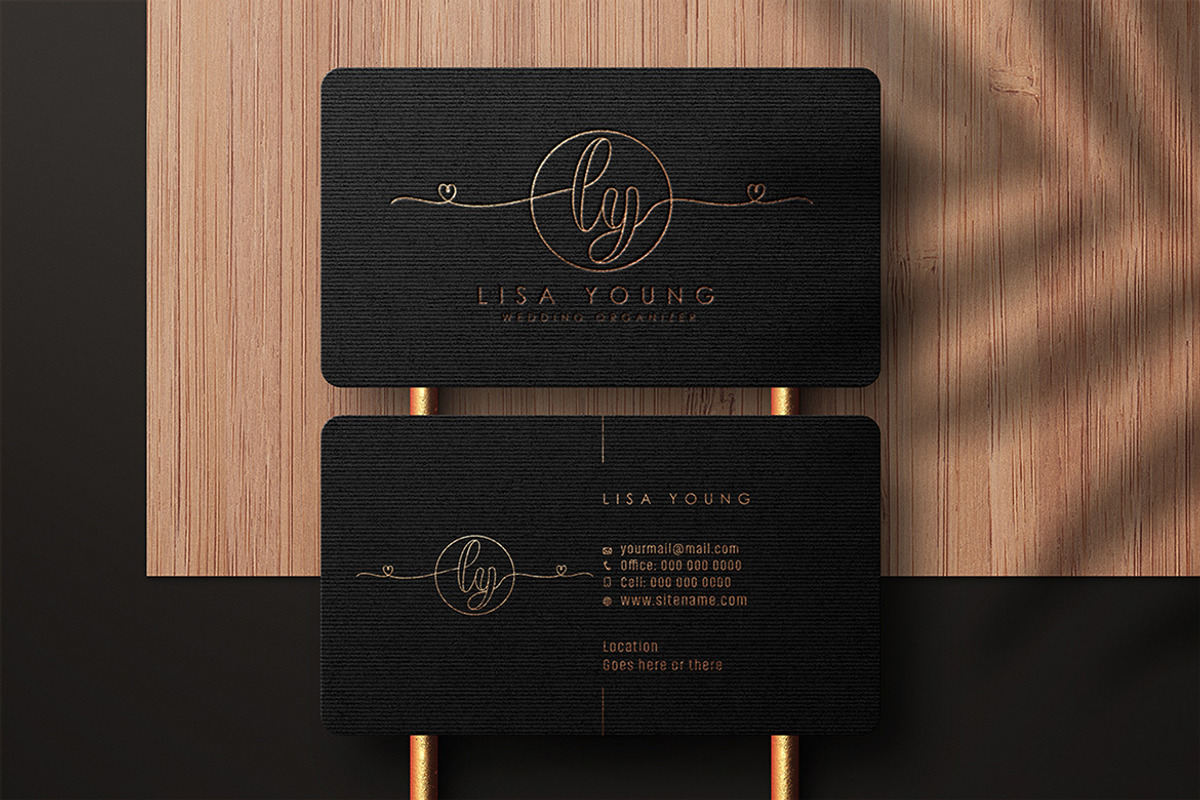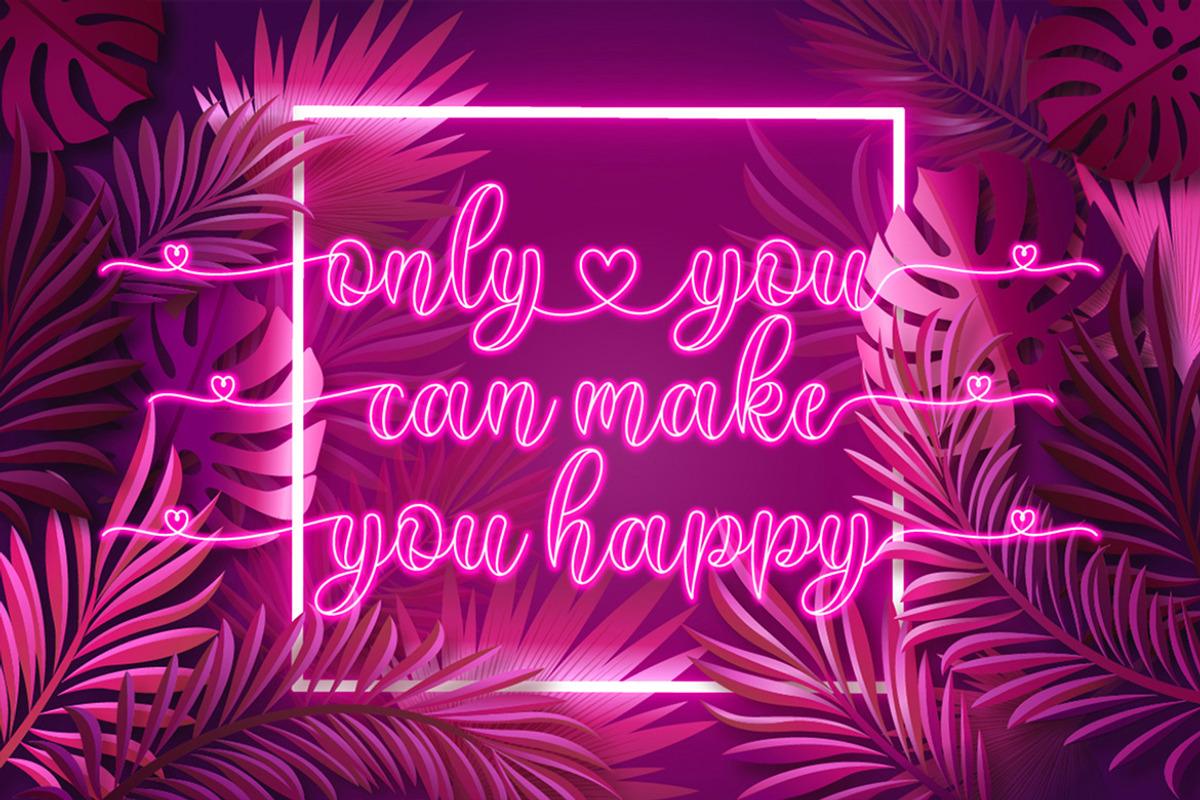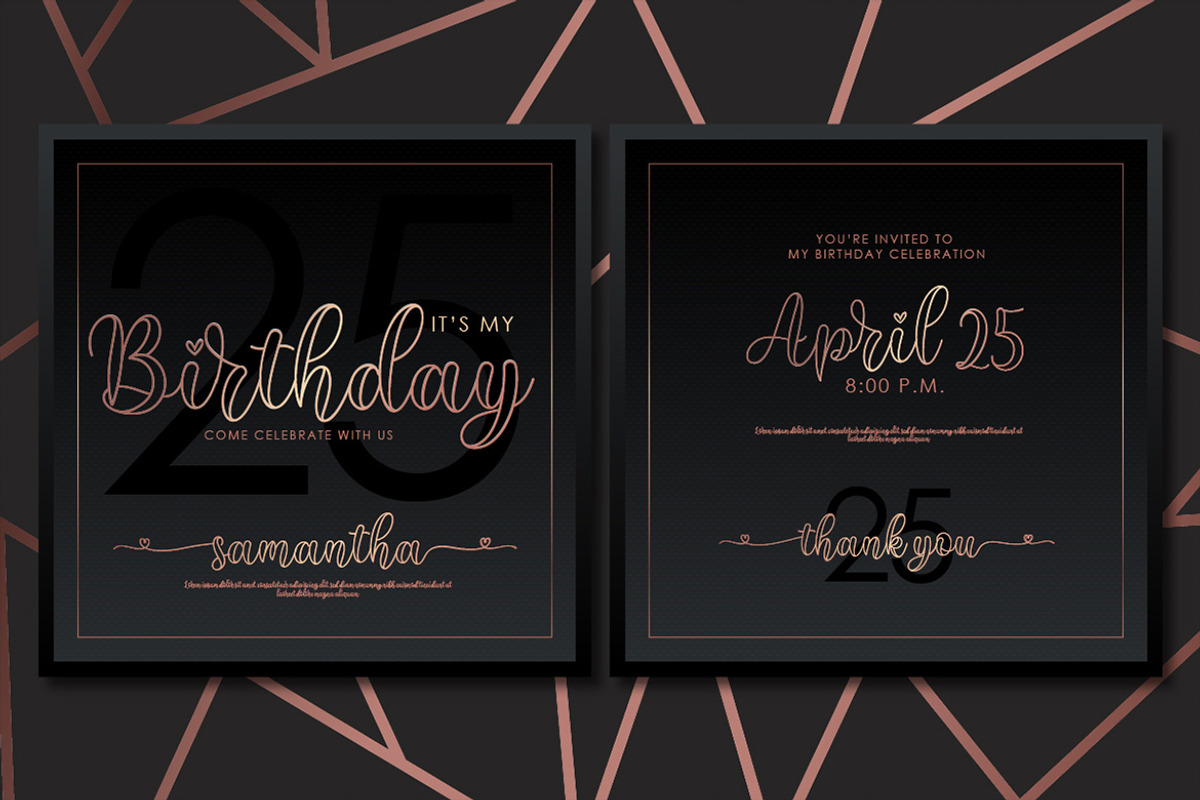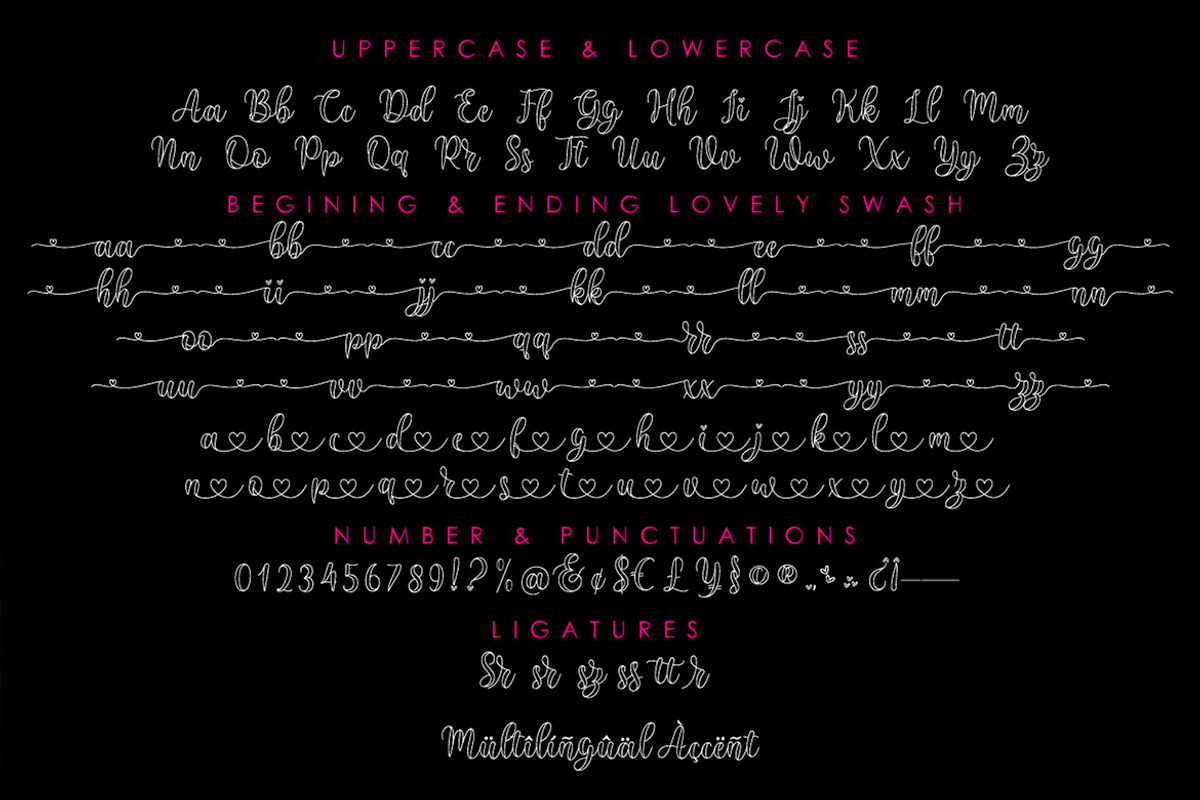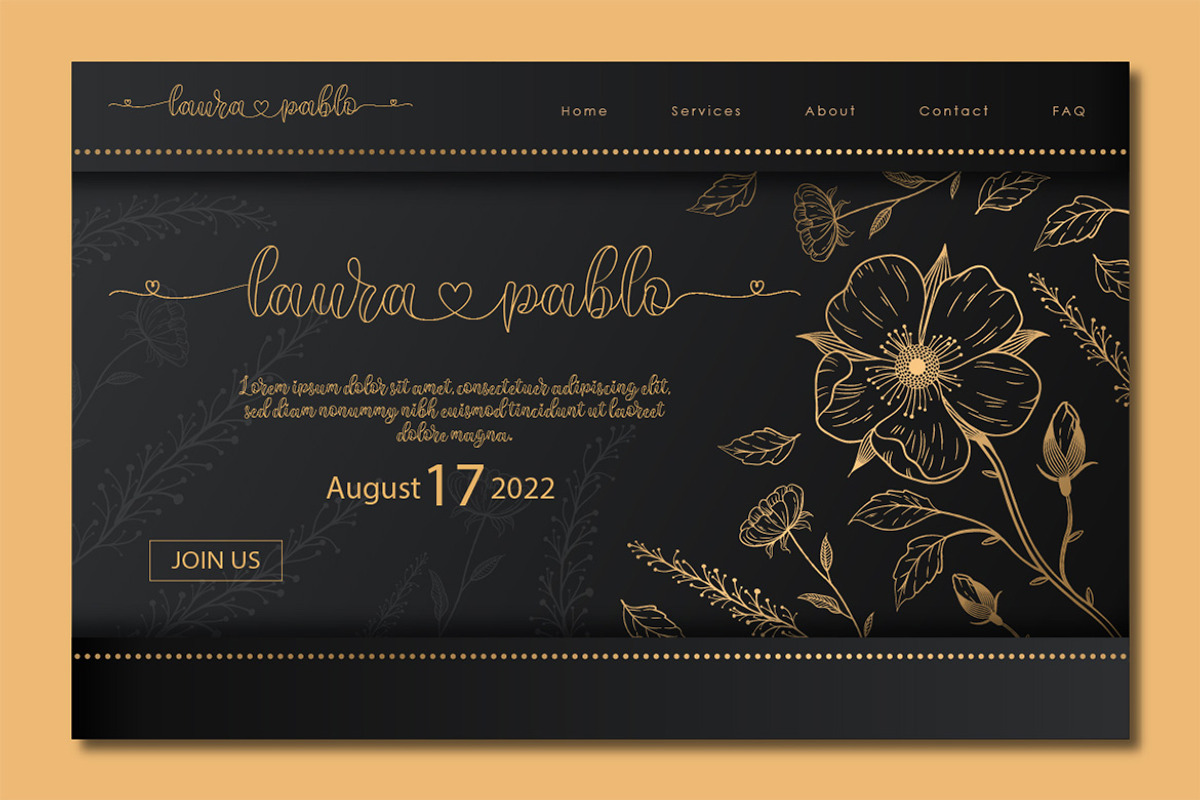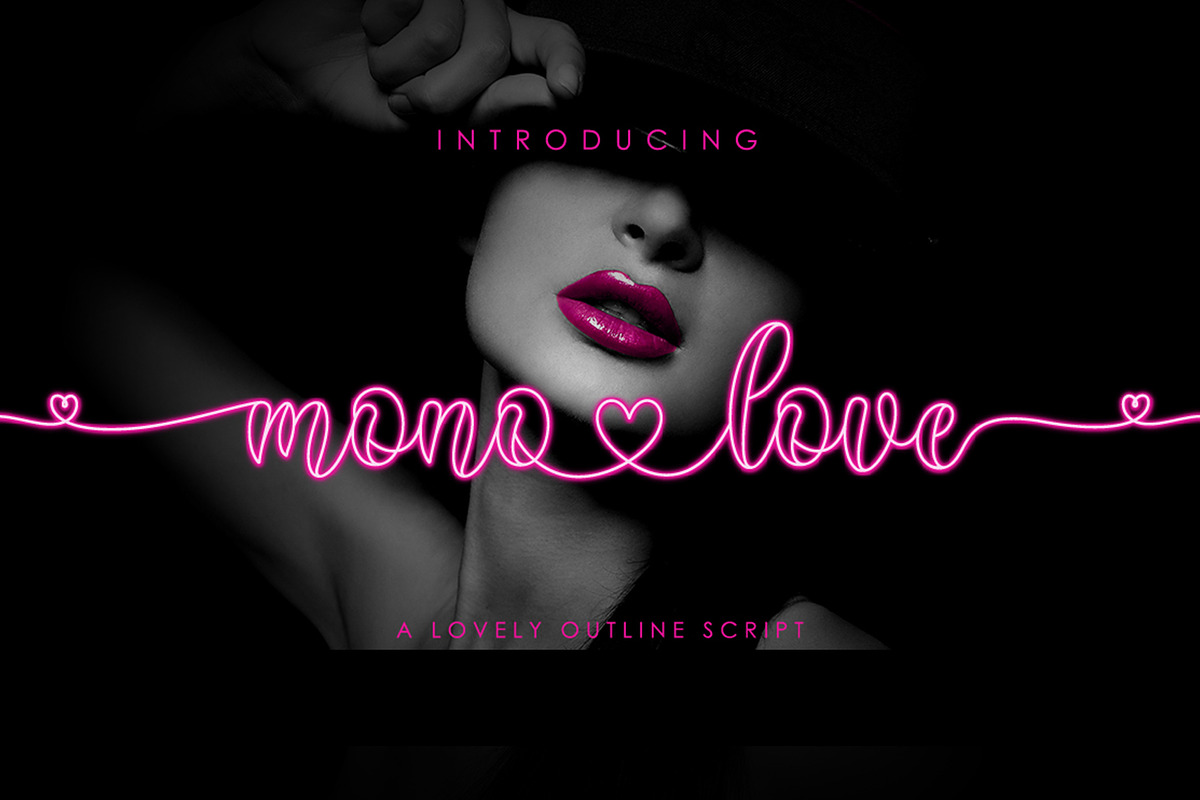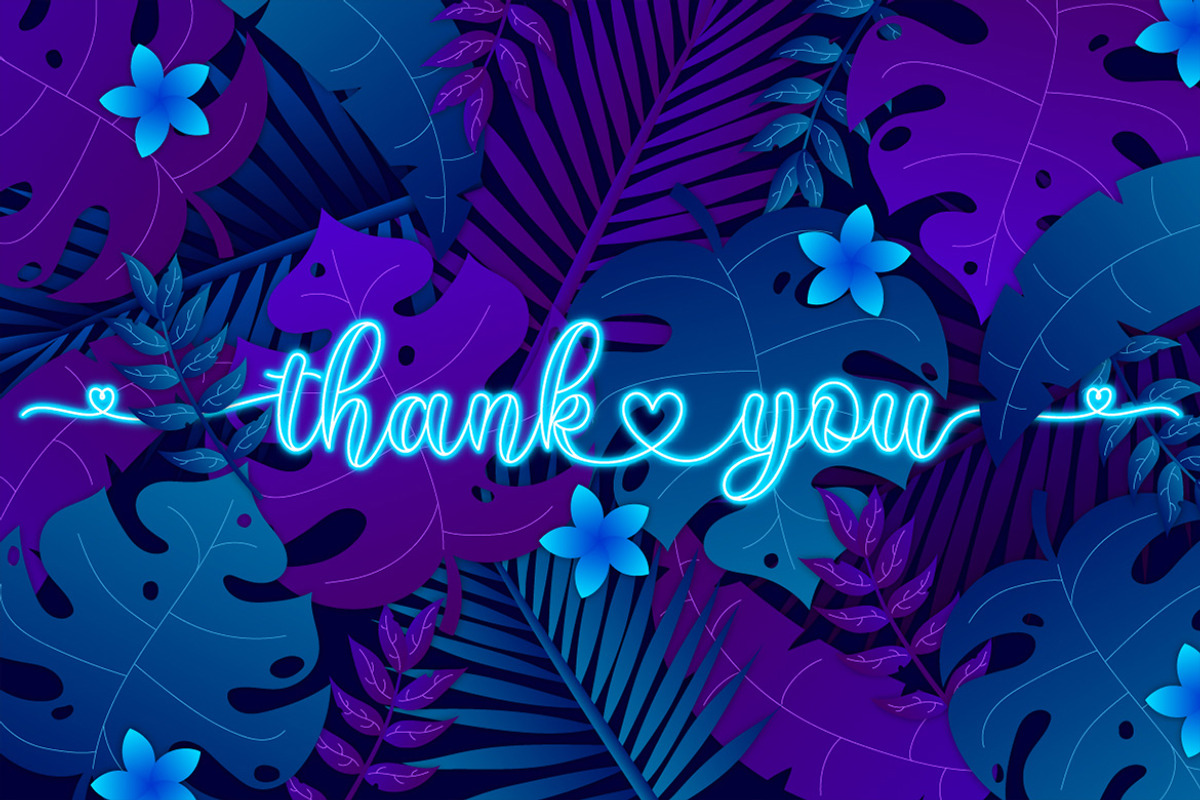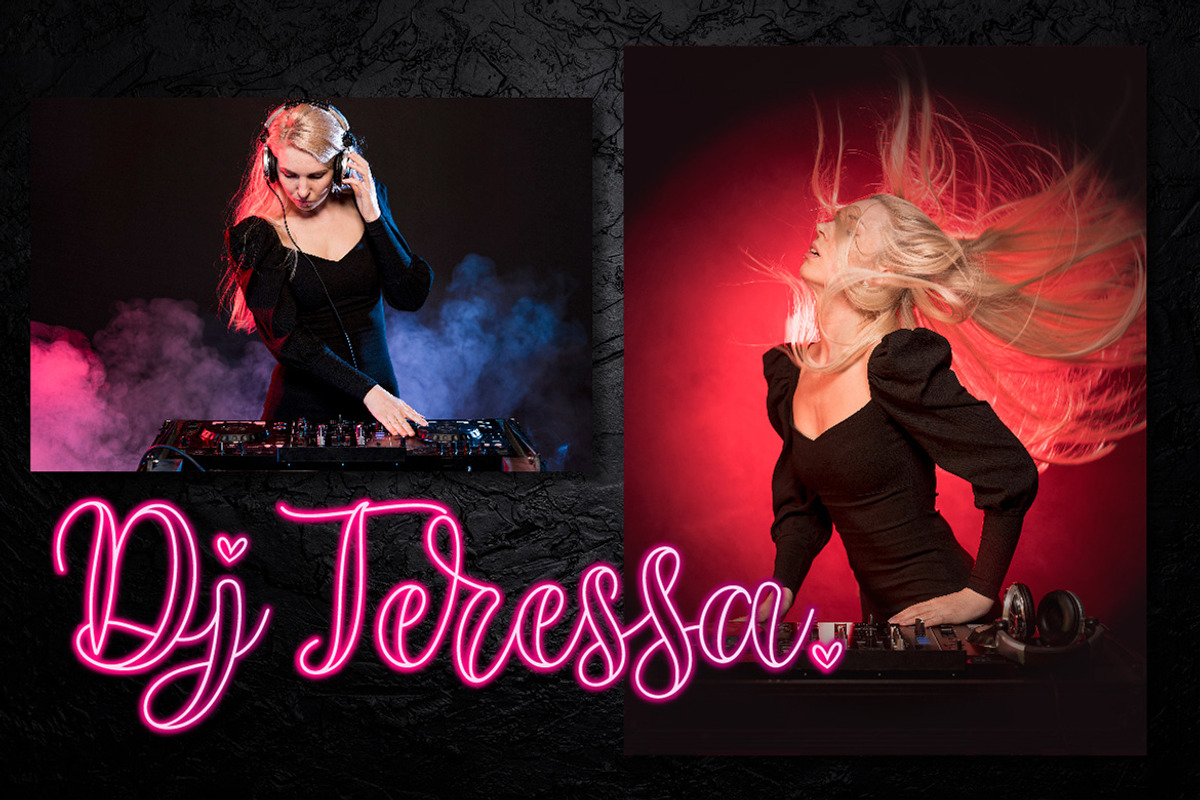
Monolove | Lovely Calligraphy
Monolove is an elegant and flowing handwritten font. It is PUA encoded which means you can access all of the glyphs and swashes with ease! It features a varying baseline, smooth lines, gorgeous glyphs and stunning alternates. It maintains its classy calligraphic influences while feeling contemporary and fresh. Fall in love with this font and bring your projects to the highest levels!